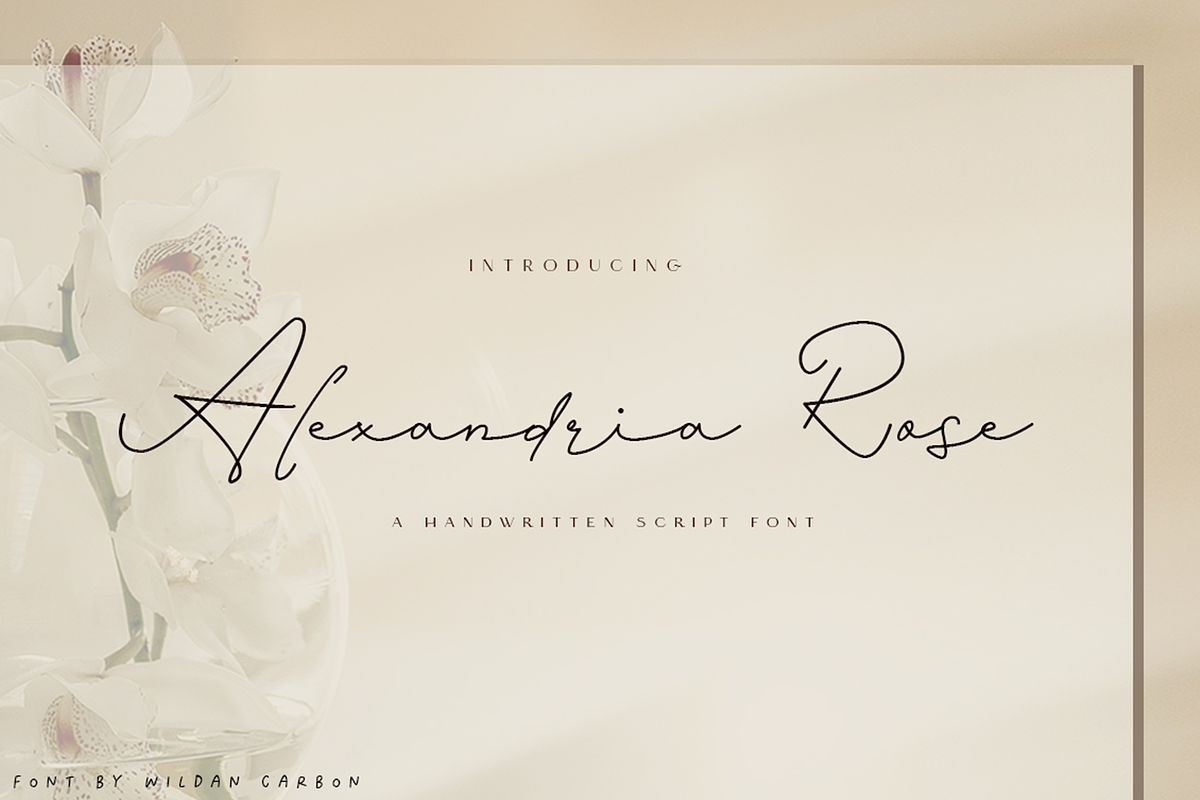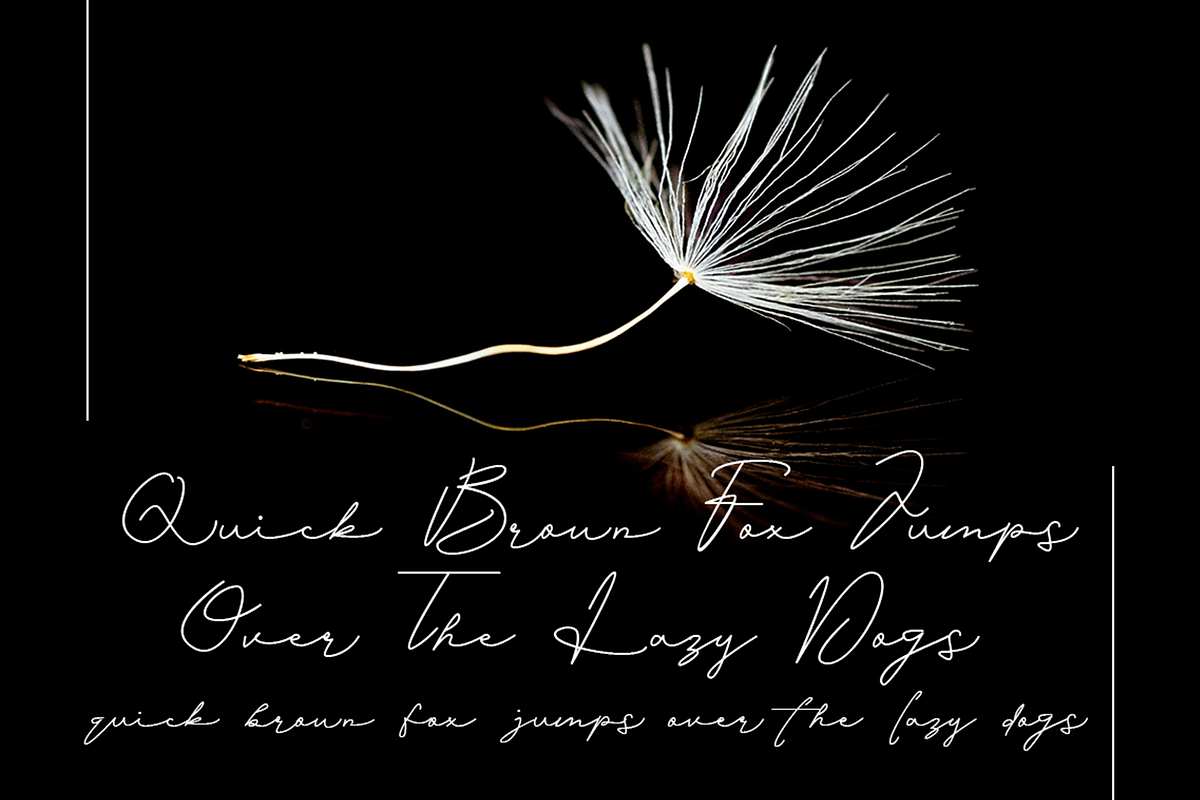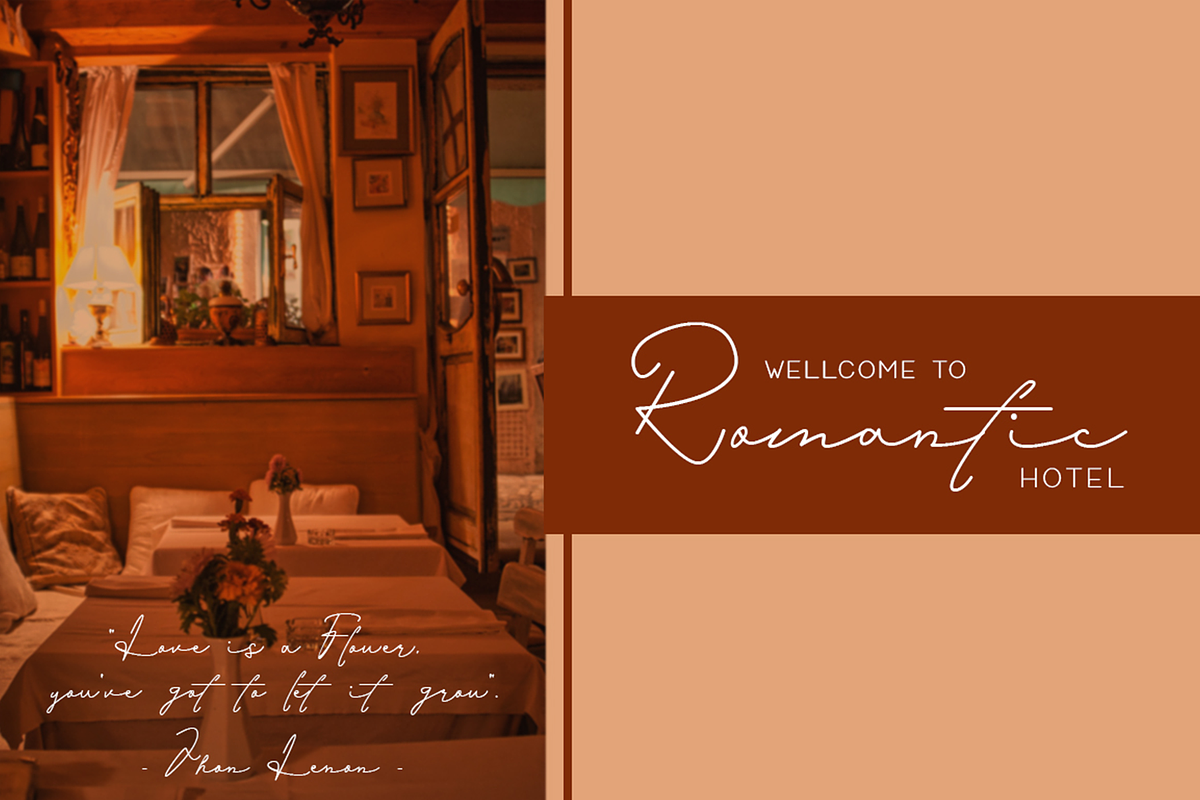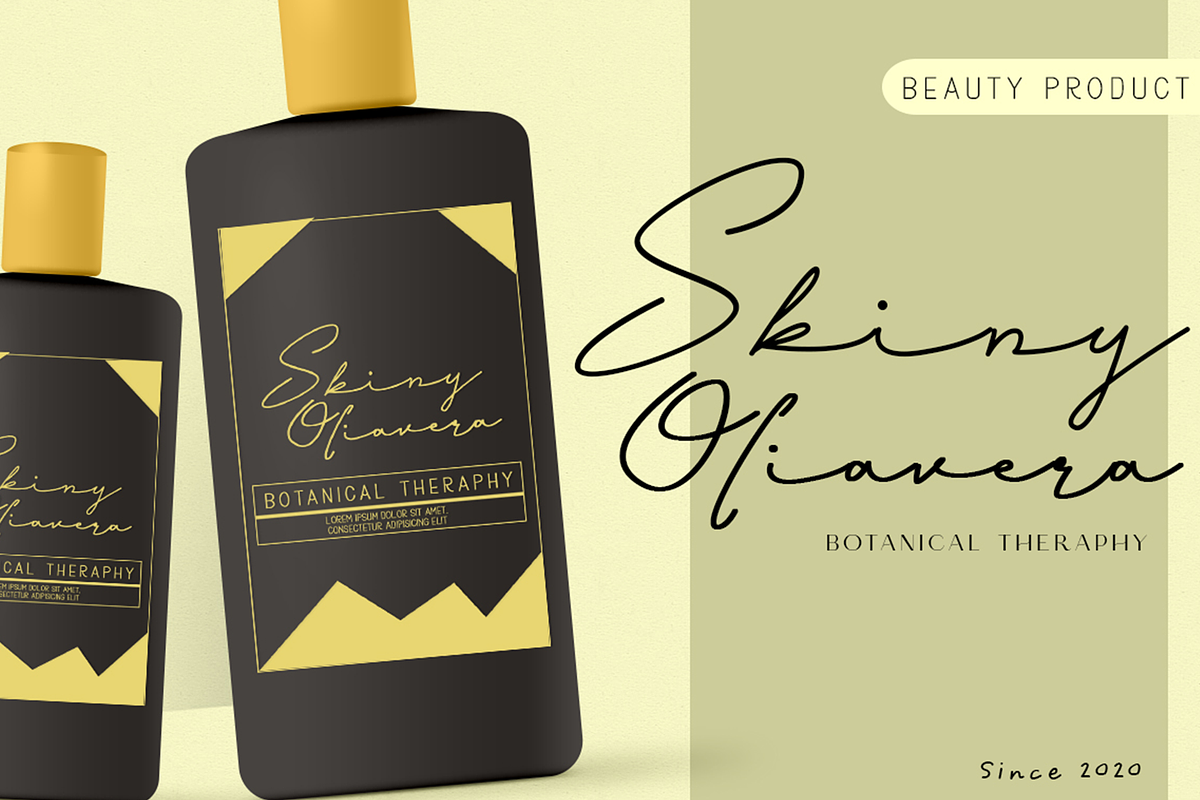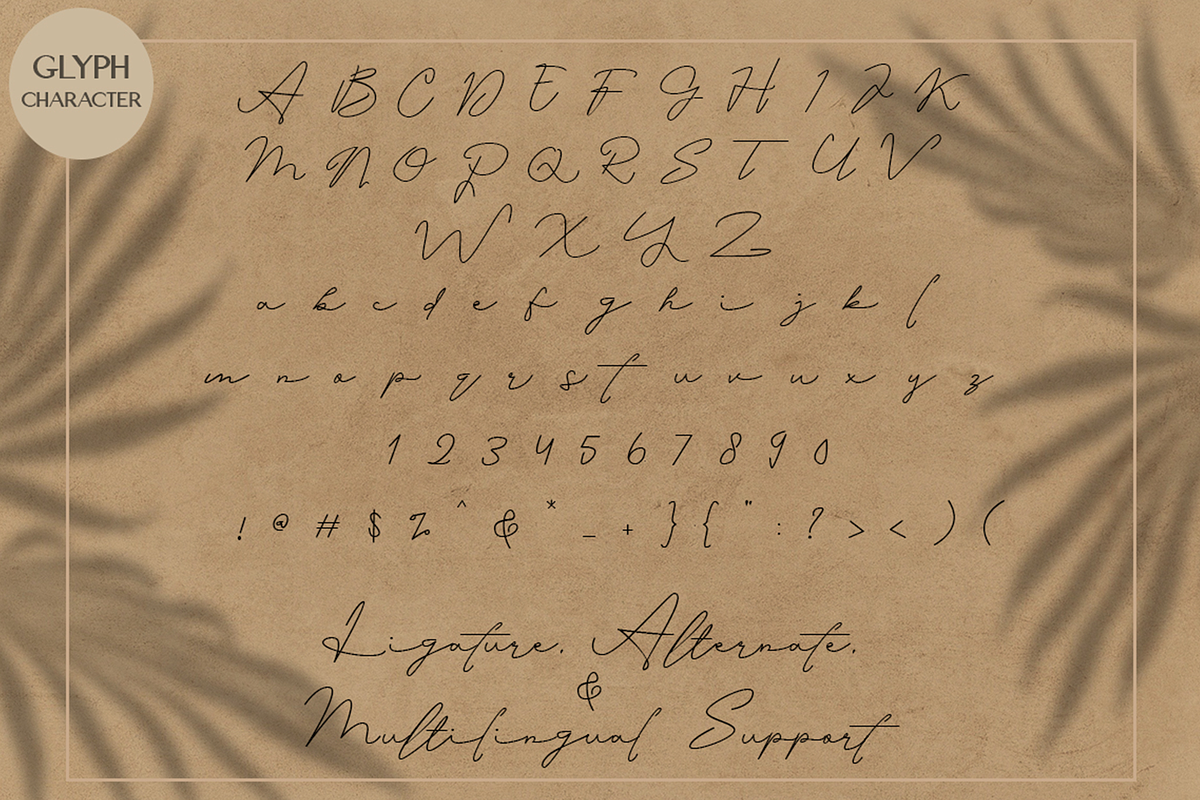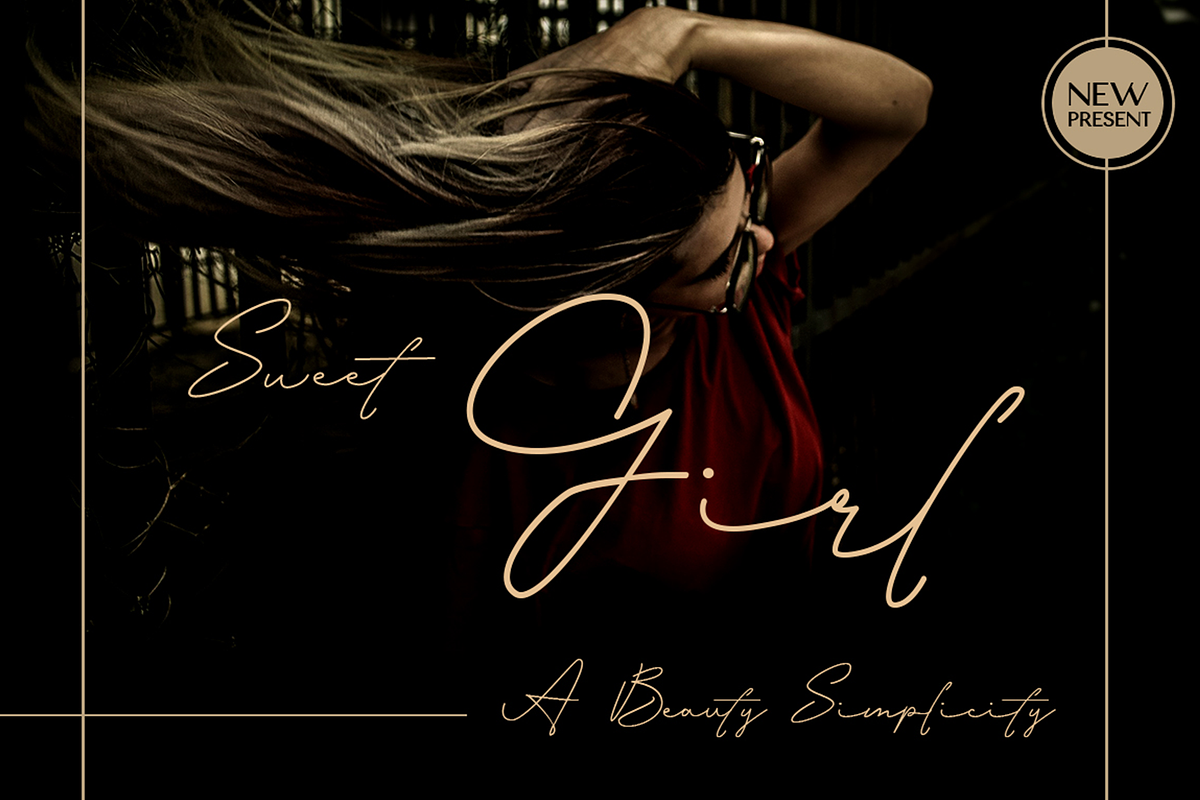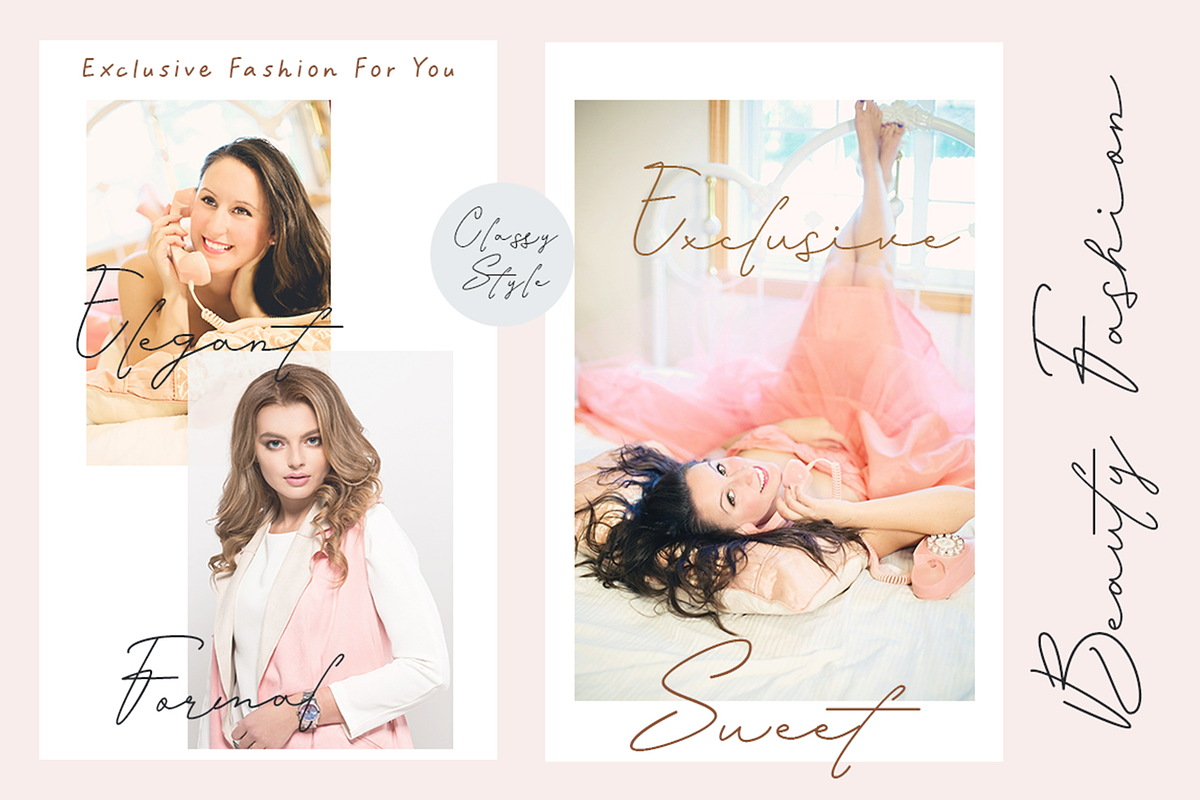
Alexandria Rose
Alexandria Rose is an elegant signature font. It has a dancing baseline which will give your design a fresh and modern feel. It’s perfect for greeting cards, branding materials, Invitation Wedding, business cards, quotes, posters, and every other design which needs to look upscale and chic!
Main Feature:
Uppercase & Lowercase Opentype Stylistic Beginning & Ending Ligatures Number Punctuation Multilingual Support Symbols Support PUA Unicode